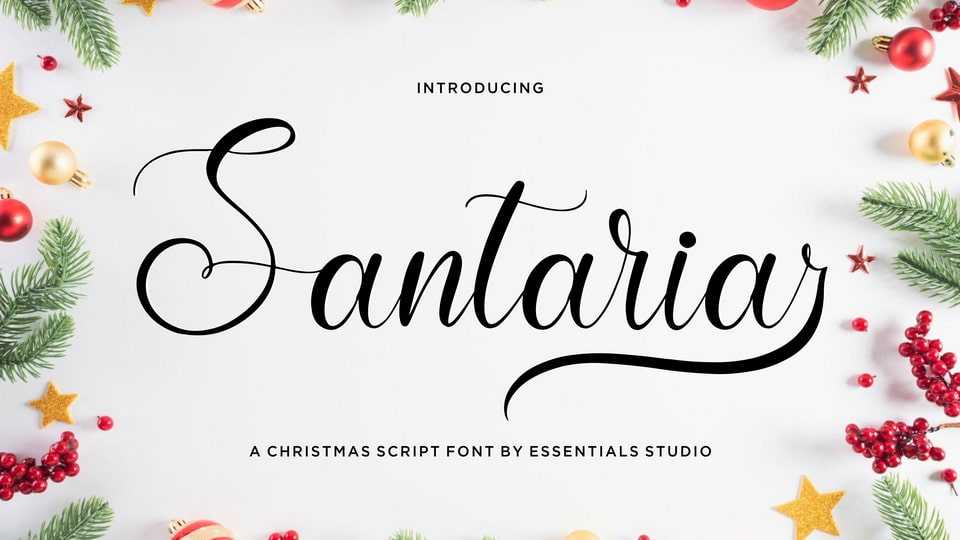
Download Santaria font, a delicate and stylish handwritten script typeface. Add it to your most creative ideas, and notice how it transforms them into authentic pieces of art!
Designer: Essentials Studio